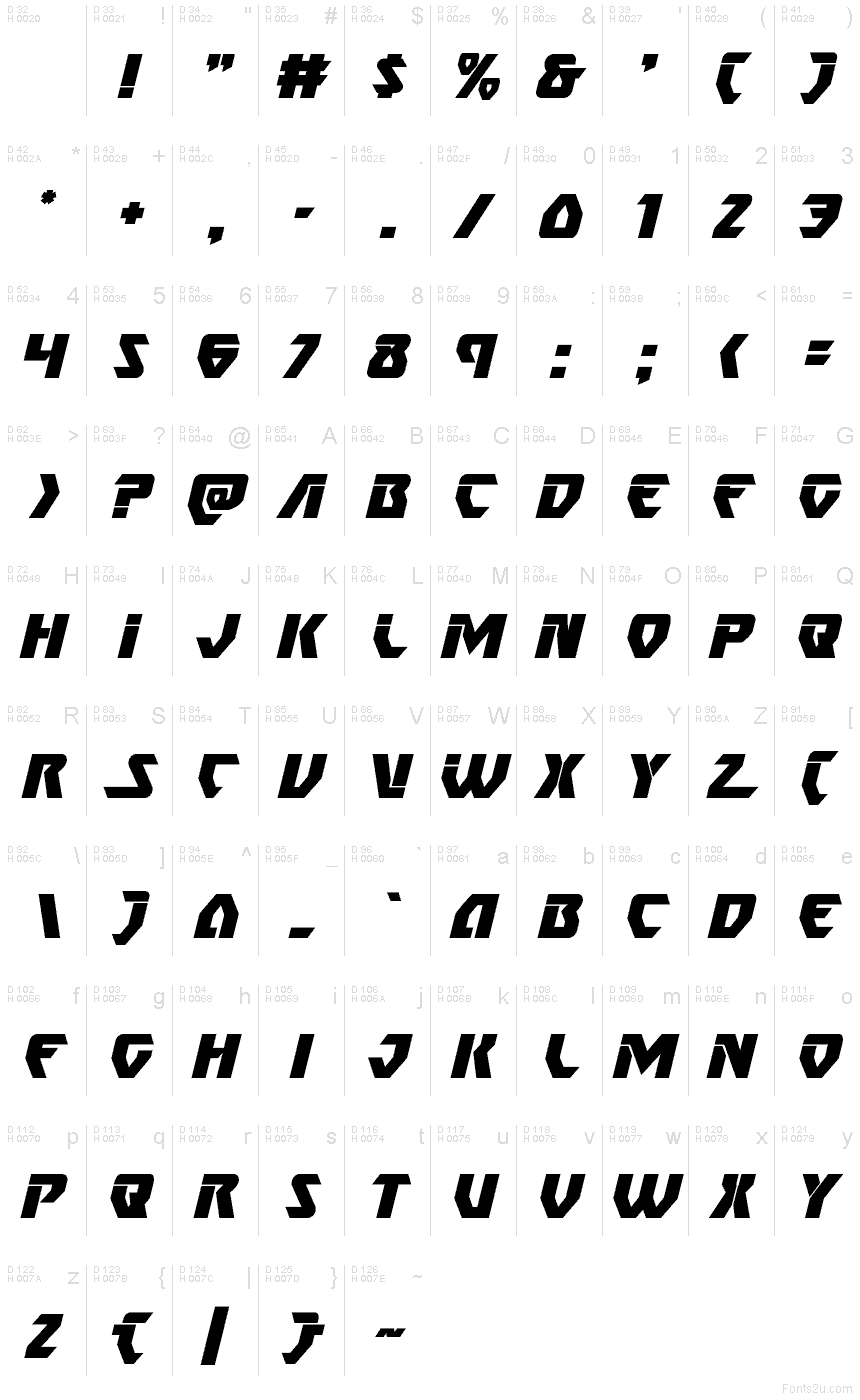
Ion Cannon Italic
Ion Cannon Italic font designed by Iconian Fonts is a futuristic display font suitable for countless designing needs. The bold geometric characters have impactful angles and lines that were heavily influenced by technology. Their visual utilitarian nature is enhanced with symmetrical balance which makes the font appear truly exceptional.
This retro-futuristic free display font will perfectly match projects related to technology, athletics, gaming, video editing, and many other professional industries. Include it in posters, logotypes, websites/apps interfaces or even as text within articles.